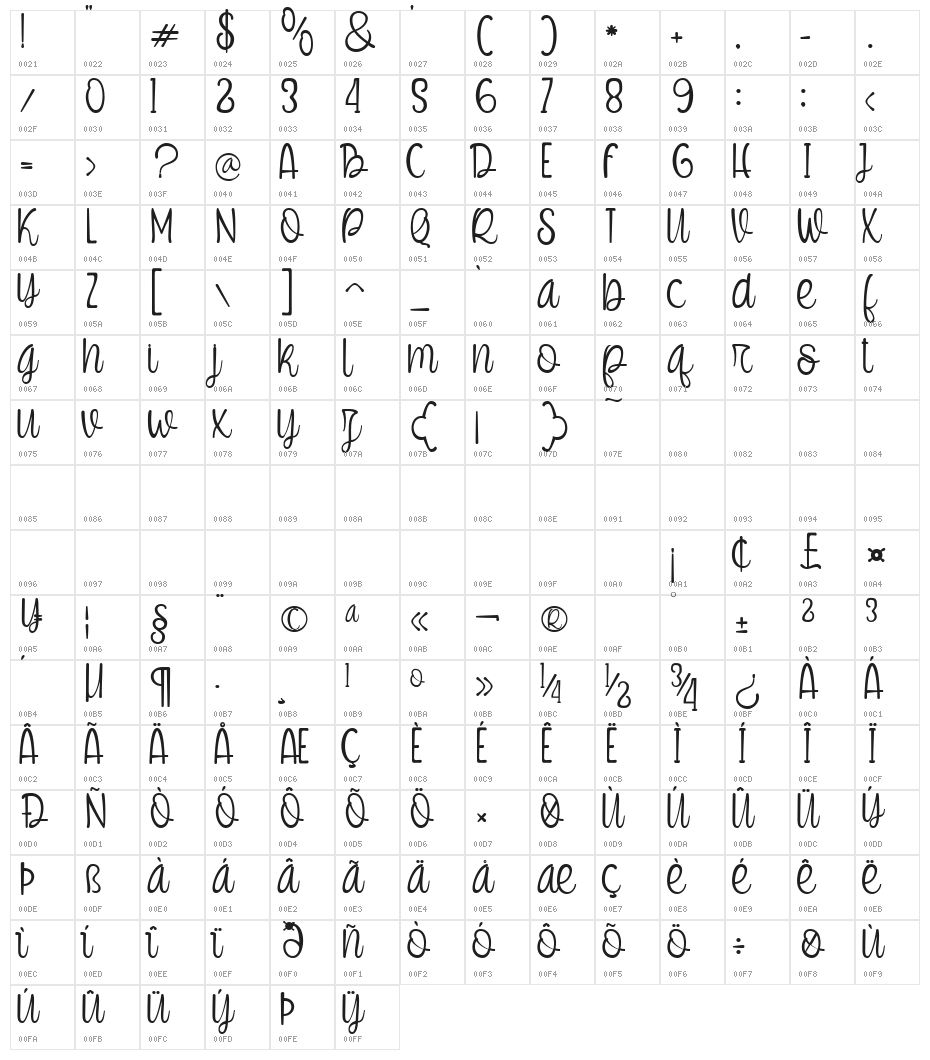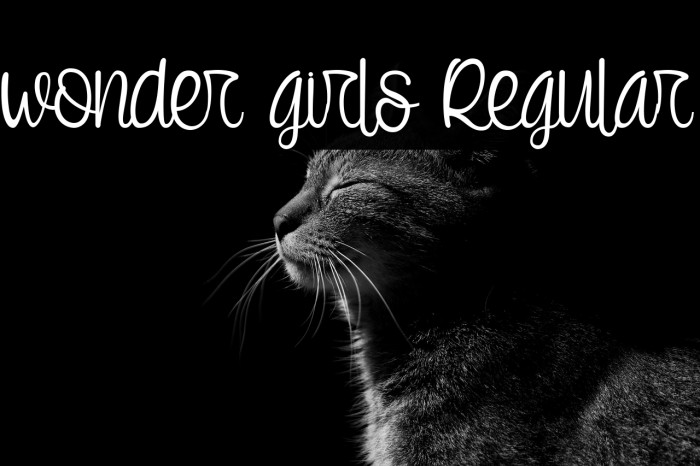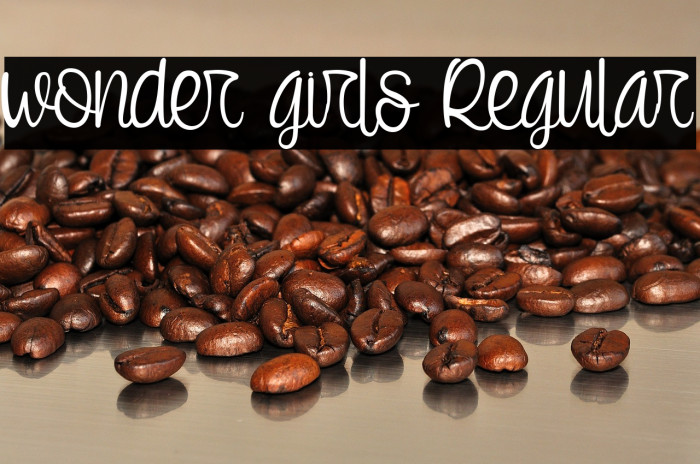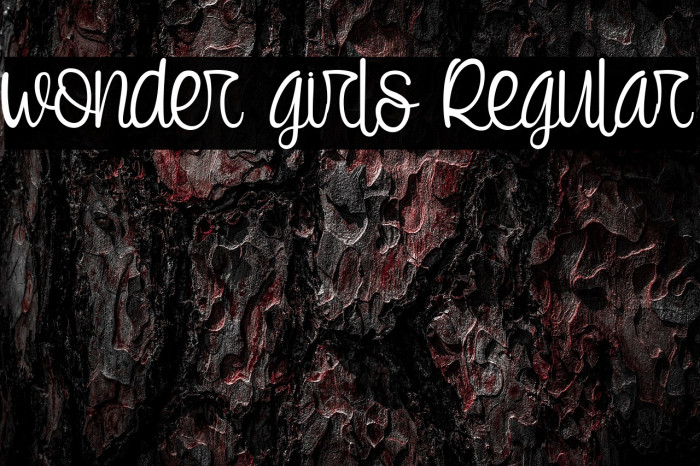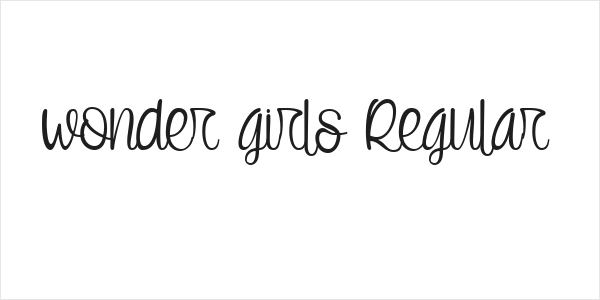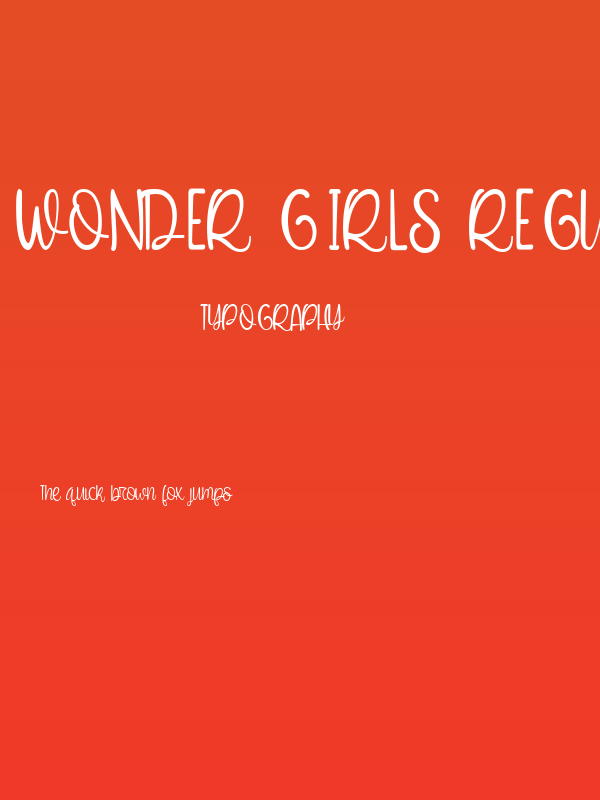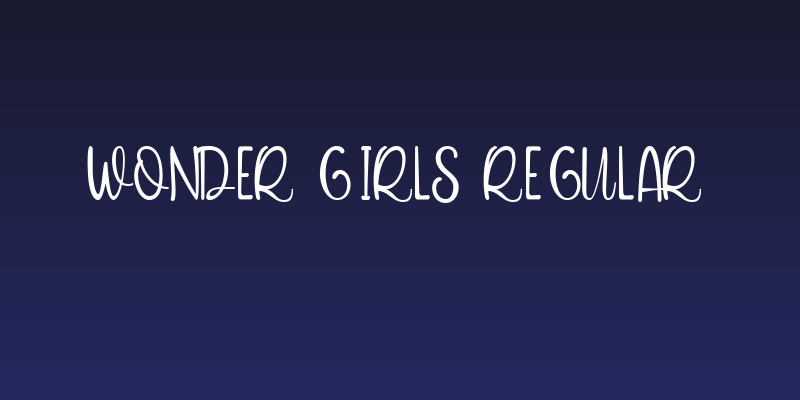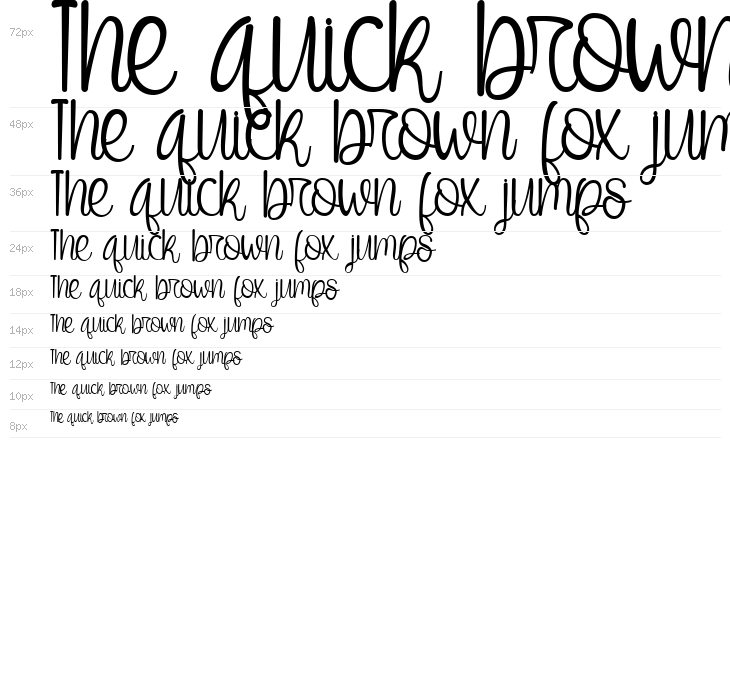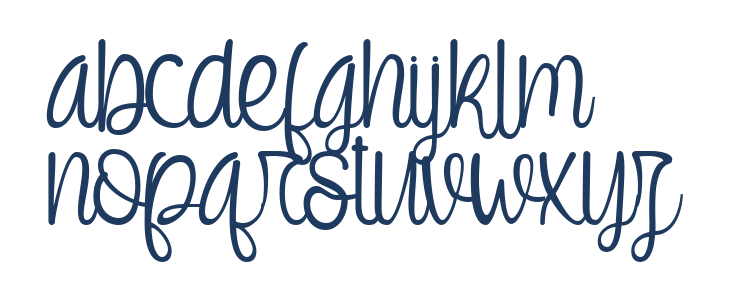
wonder girls Regular Font
wonder girls Regular Description
This font features a playful and whimsical script style, characterized by its flowing, interconnected letters and a casual, handwritten appearance. The uppercase letters are tall and narrow, with some letters exhibiting unique loops and curves that add to its charm. The lowercase letters maintain a consistent flow, enhancing readability while retaining a lively aesthetic. The numerals are bold and rounded, complementing the overall style. Special characters are creatively integrated, maintaining the font's cohesive look. This font is ideal for projects that require a personal touch or a fun, informal vibe.
Overall StylePlayful, Whimsical
Use CaseHeadlines, Logos, Invitations
Proposed ProjectsGreeting cards, invitations, children's books, playful branding, and social media graphics.